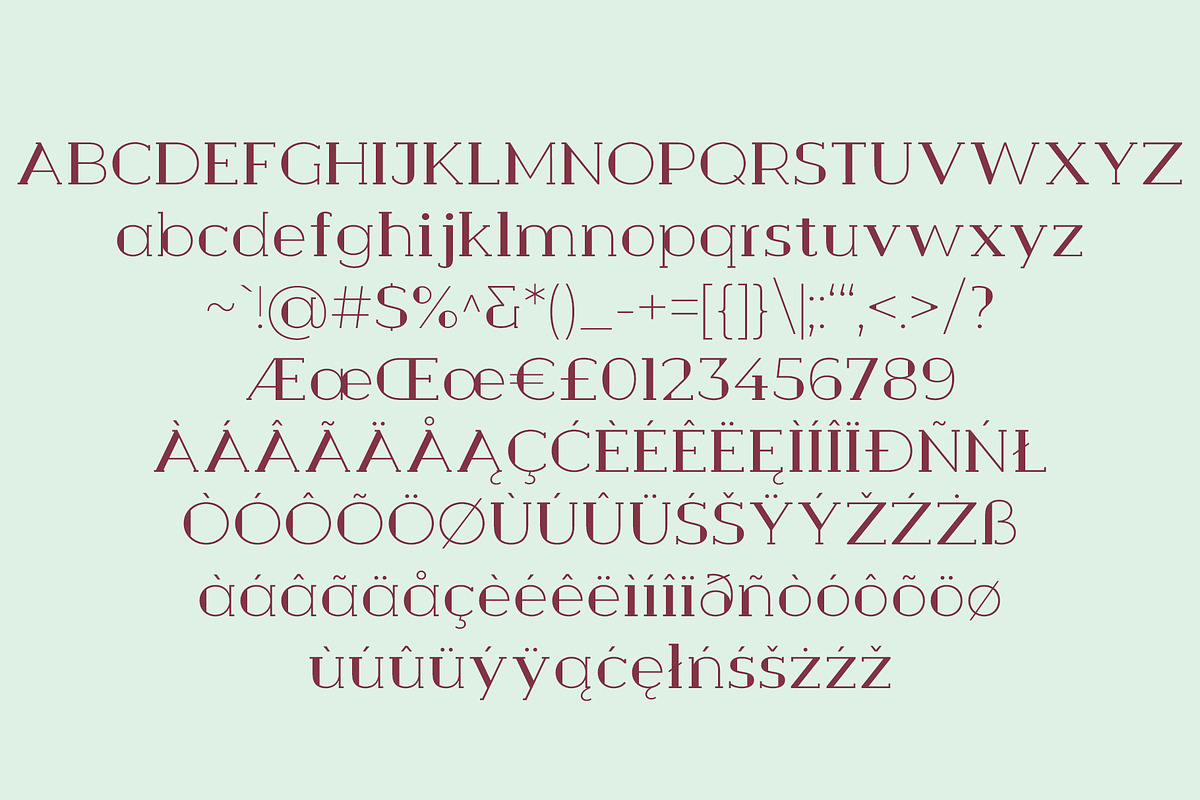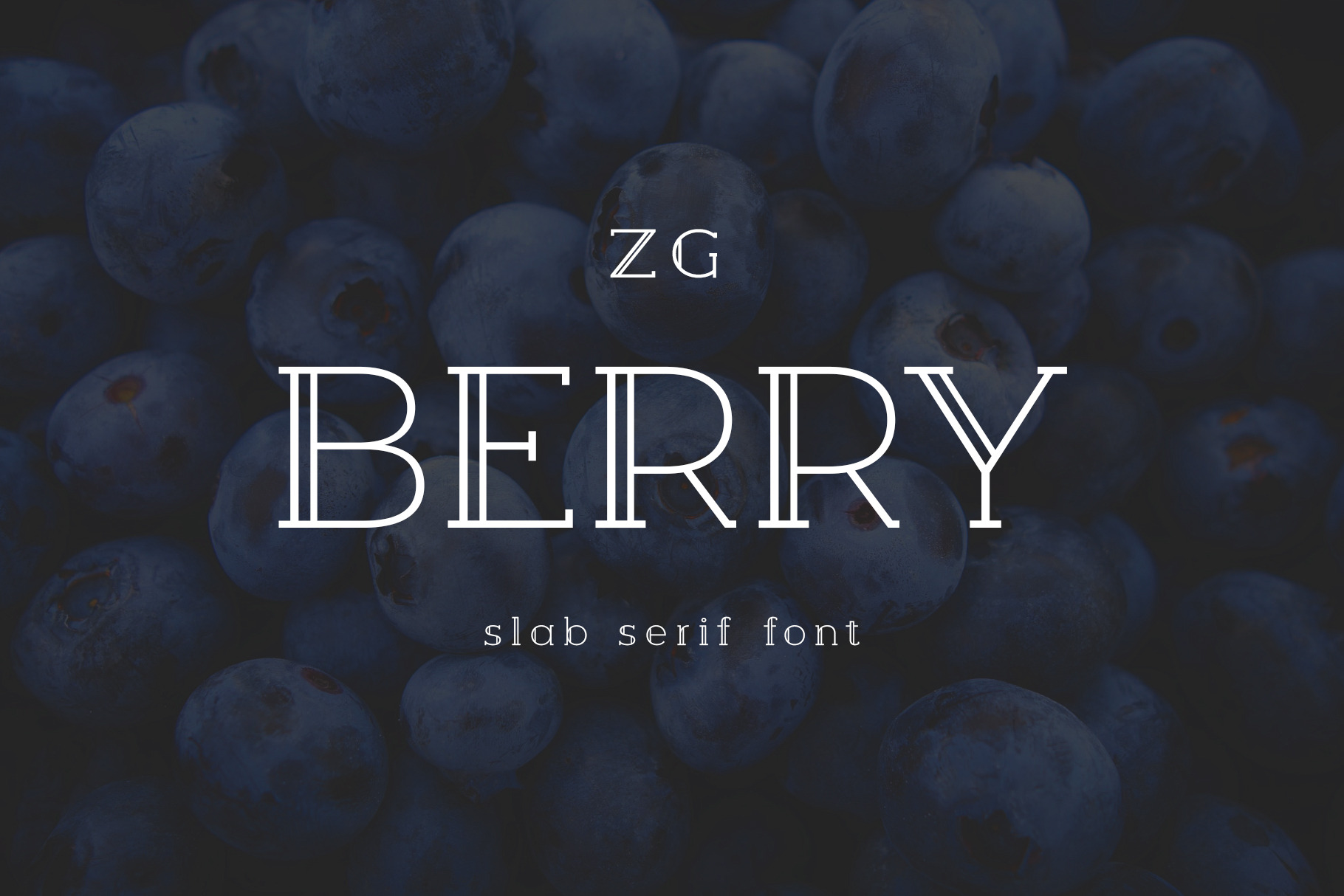
Berry Slab Serif Font
A fun versatile font featuring two different weights. We hope that you will find this font useful in your projects and have fun with it!
- 2 font weights
- Numerals and punctuation
- Alternates and ligatures